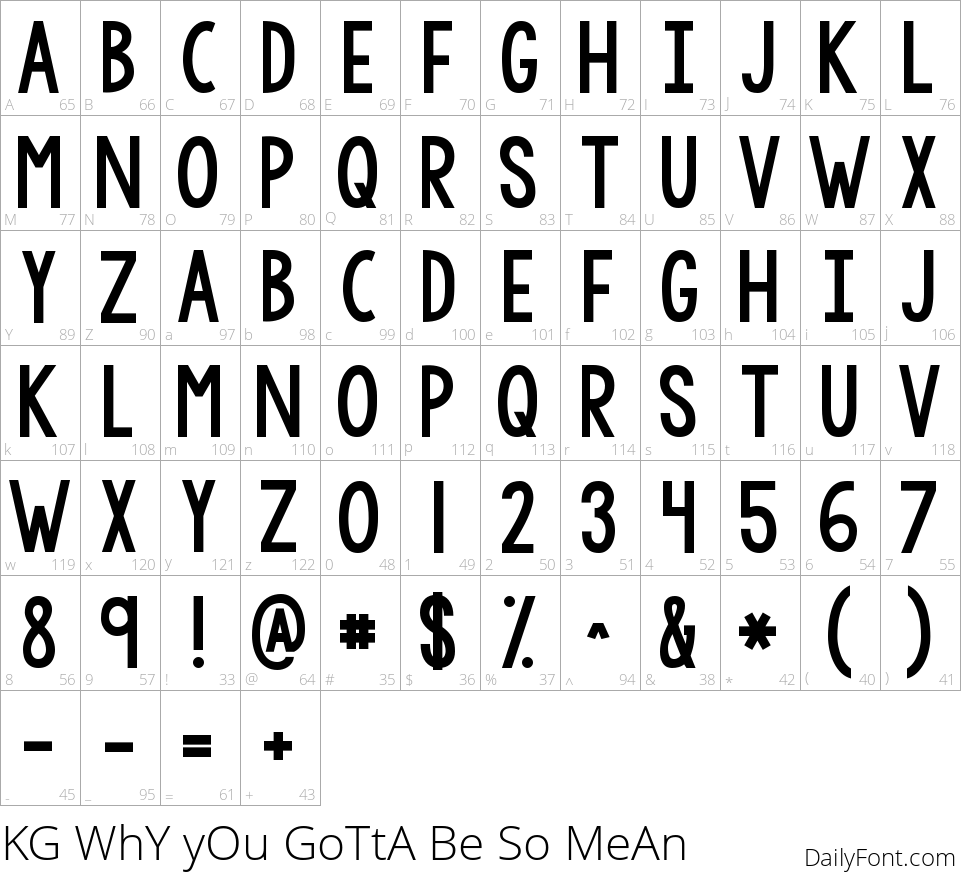
Kg Why You Gotta Be So Mean
Kg Why You Gotta Be So Mean is a delightful, child-like sans serif font that radiates personality and joy. Its clean lines and playful nature make it perfect for projects aimed at younger audiences or for adding a touch of whimsy to your designs.